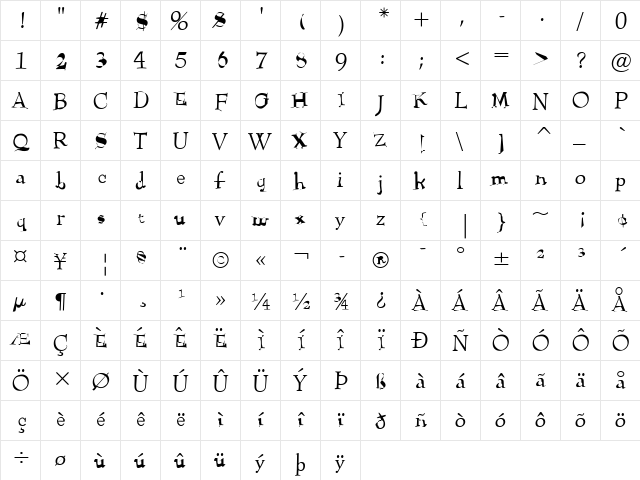
Heimlich Medium
| Foundry | Designed by Elliott Earls |
Design Context for Heimlich Typeface
Heimlich is a composed and adaptable typeface that performs quietly and consistently across a wide range of design contexts.